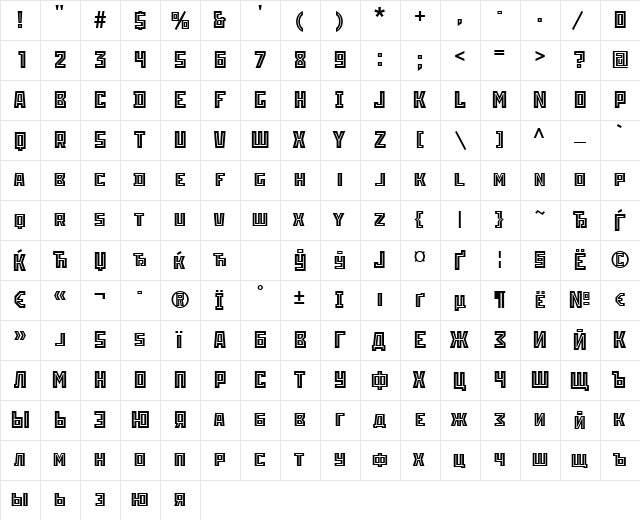
RodchenkoInlineCTT Regular
Design Context for RodchenkoInlineCTT Typeface
RodchenkoInlineCTT is built around its visual character rather than neutral utility — its distinctive forms are designed to make an impression at display sizes.
Font Pairing: Pair with a clean neutral sans-serif for body copy to let RodchenkoInlineCTT's character lead without overwhelming the composition.
Pro Tip: Use RodchenkoInlineCTT exclusively at display sizes — it was designed to be seen, not read at length. Let a neutral companion handle body copy.